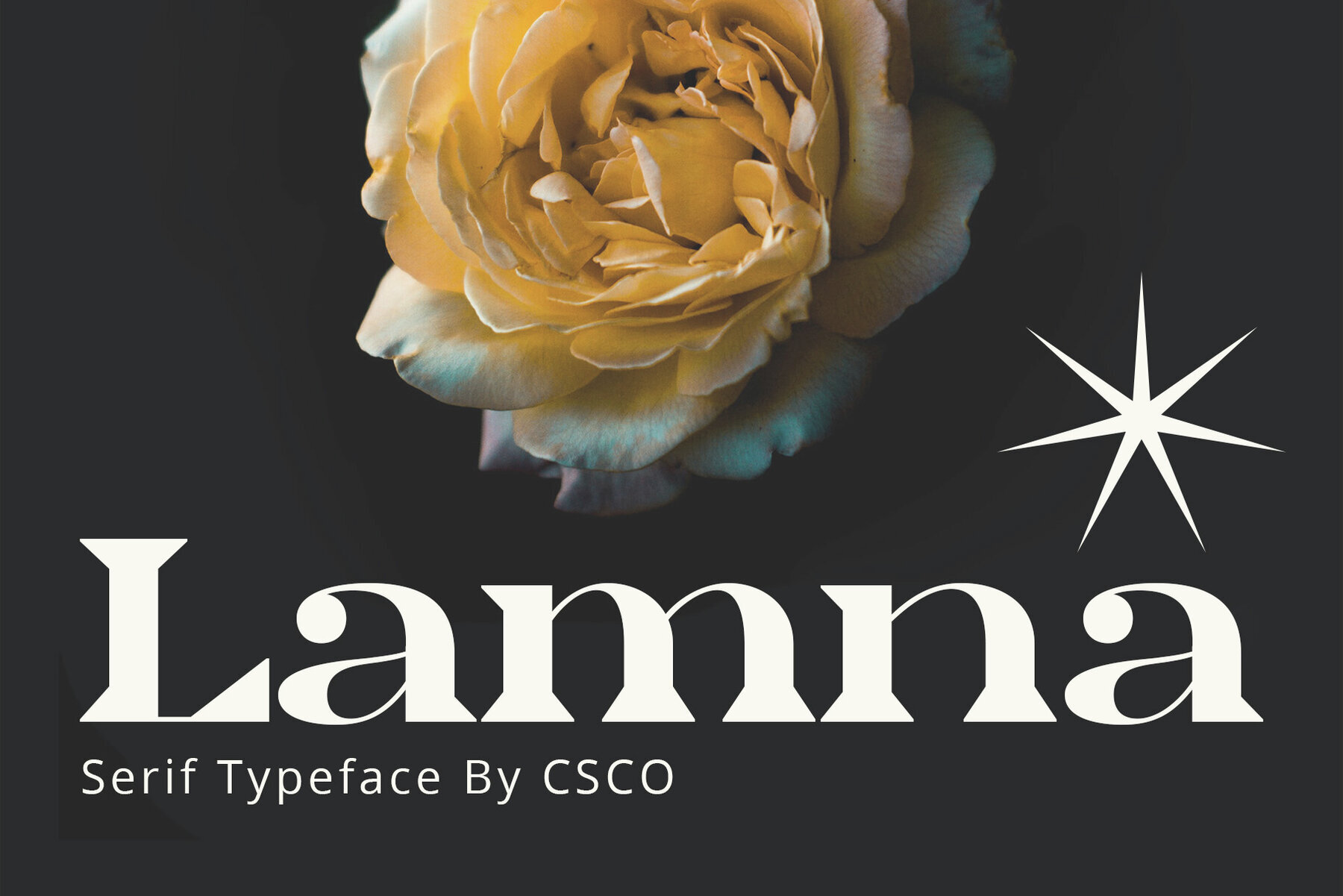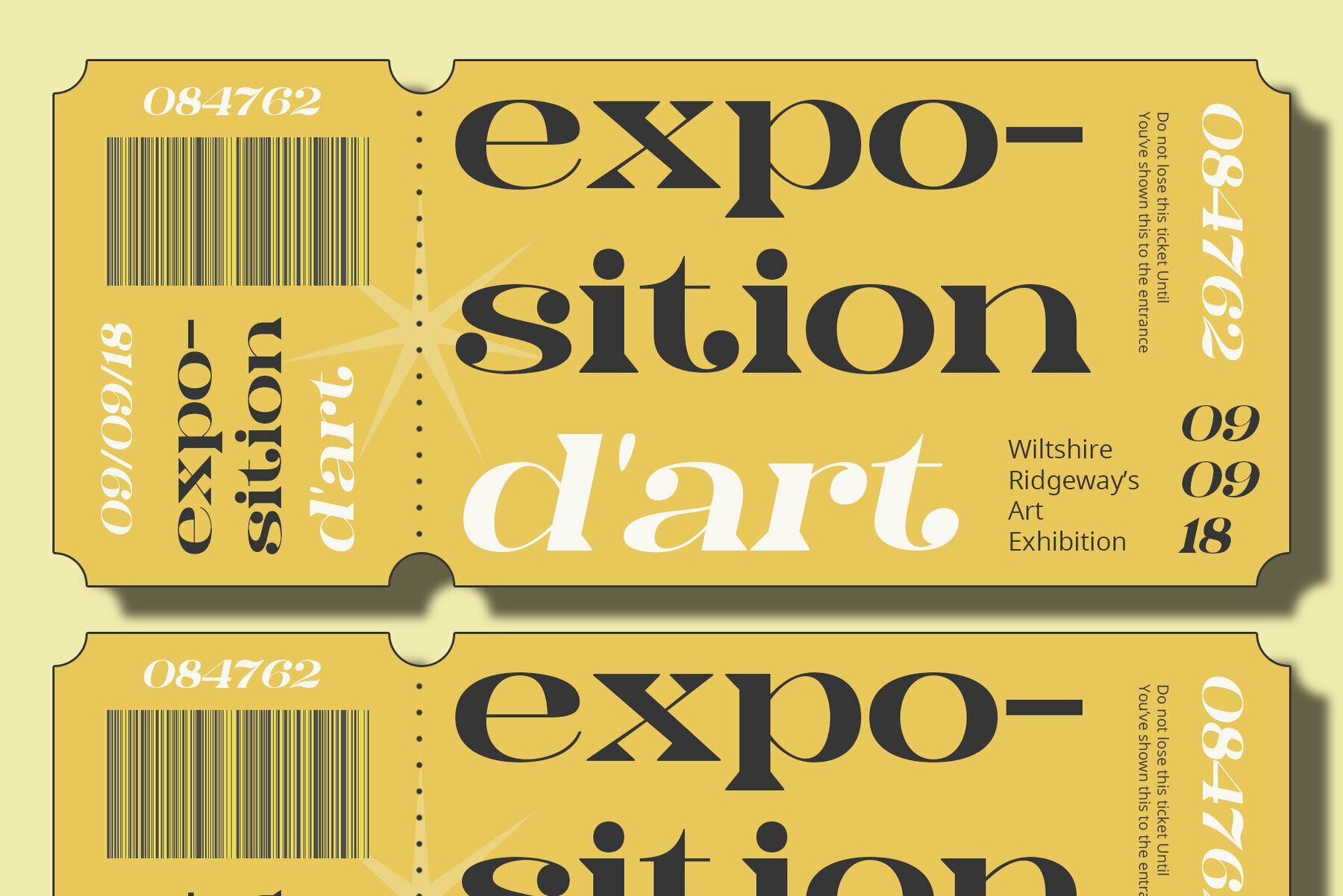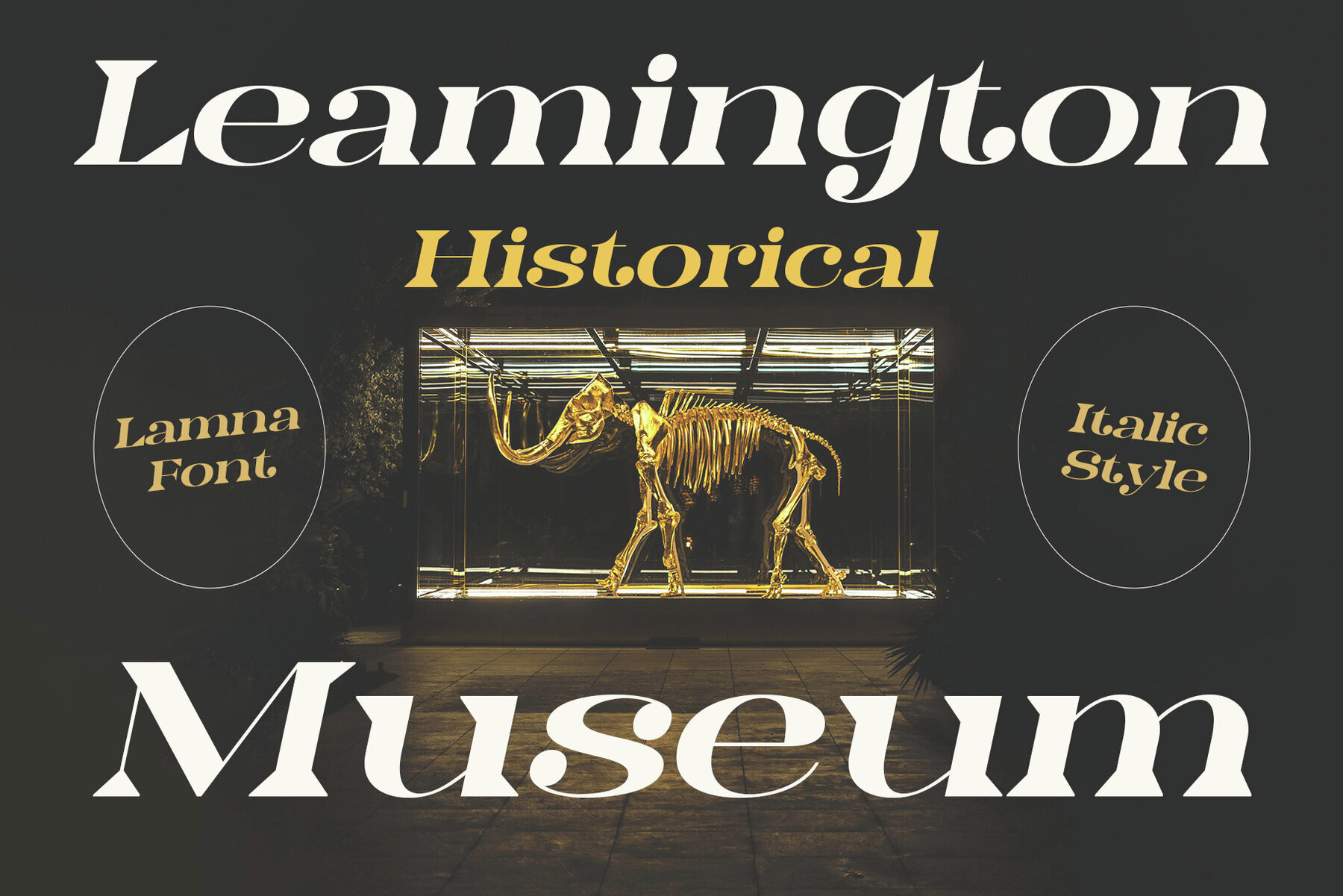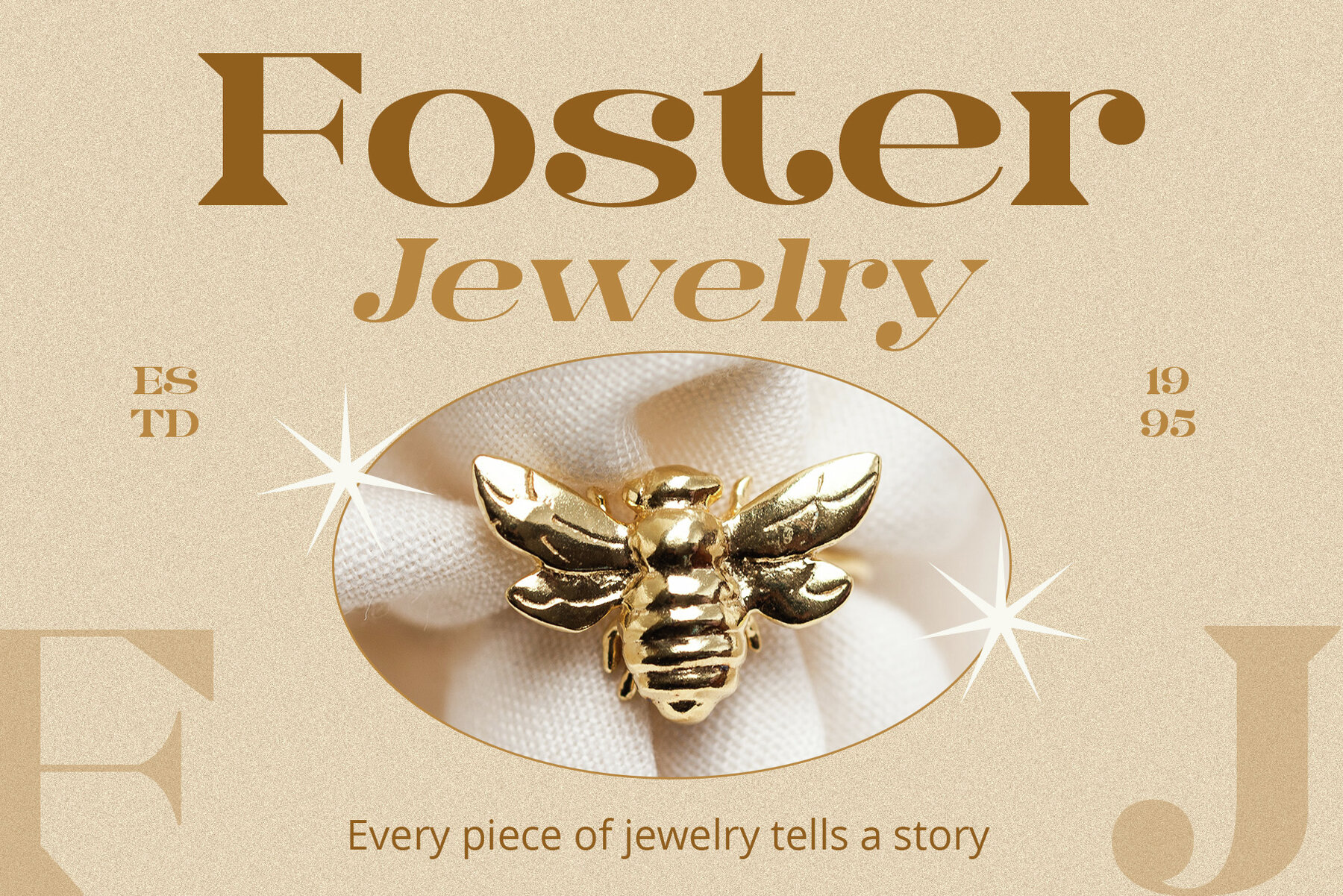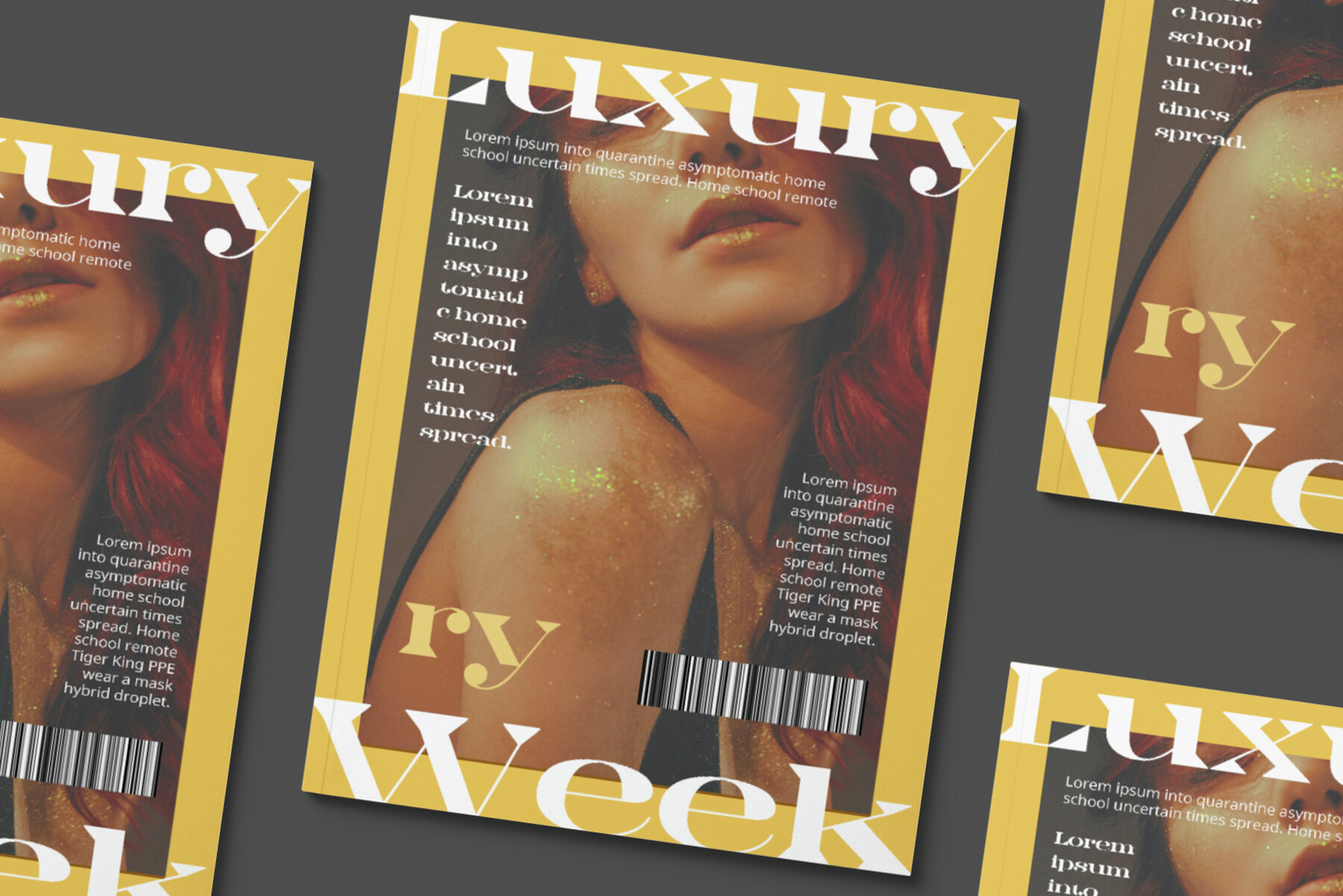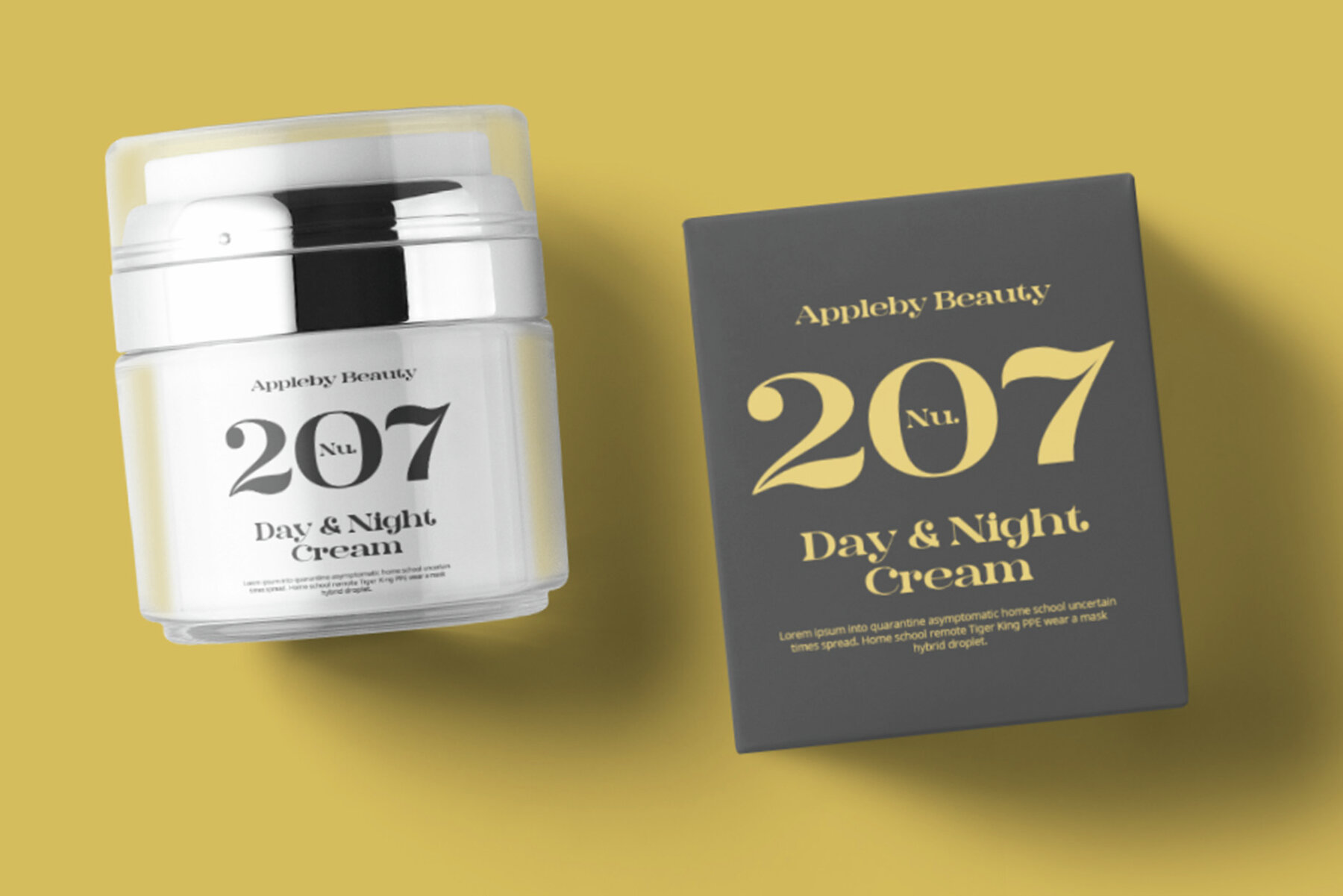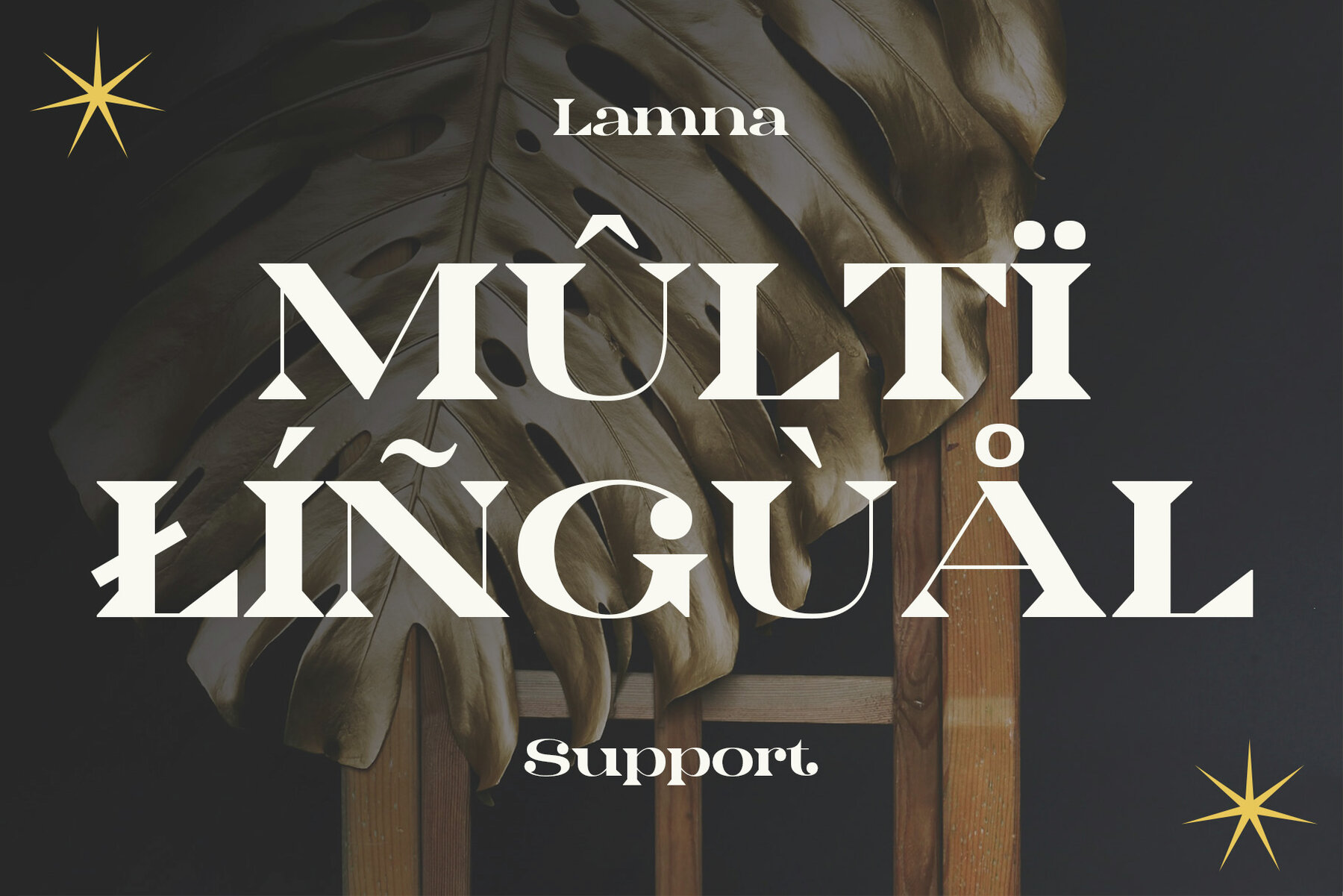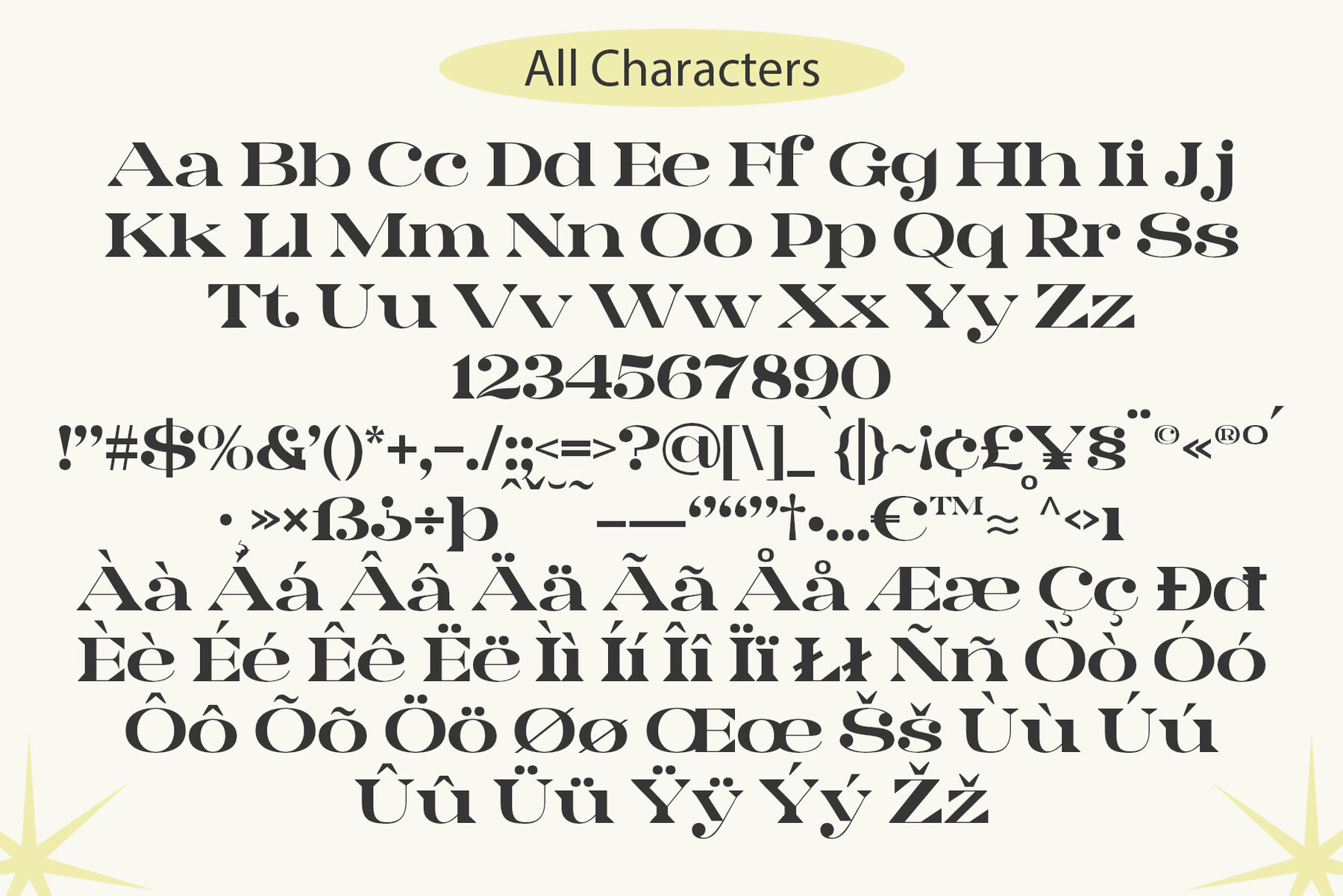
Lamna Font
Introduction to Lamna – Wide Serif Font Lamna is a distinct wide serif font, characterized by its upright and bold appearance. Its design combines traditional elegance with modern simplicity, making it versatile for various applications. This font stands out due to its unique wedge-shaped serifs and strong structure. Design Features The key feature of Lamna is its wedge-shaped serifs. These serifs are not just decorative; they add a sense of stability and formality to the text. The wide structure of the font enhances readability, making it ideal for both print and digital media. Moreover, its upright stance contributes to its authoritative tone, suitable for titles and headings. Versatility and Usage Remarkably, Lamna adapts well to different contexts. Its clear, strong lines make it perfect for headlines and logos, where a commanding presence is needed. Additionally, it performs well in body text, offering a comfortable reading experience. Its versatility extends to various industries, including publishing, advertising, and digital design. Accessibility and Appeal Lastly, Lamna’s design is accessible to a broad audience. Its straightforward design avoids complex vocabulary, making it easy to understand and use. The font appeals to designers seeking a blend of tradition and modernity. It’s a go-to choice for projects requiring a font with character and clarity.